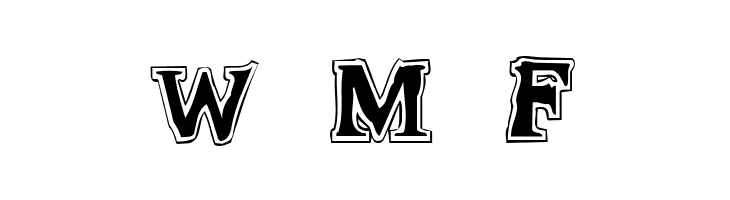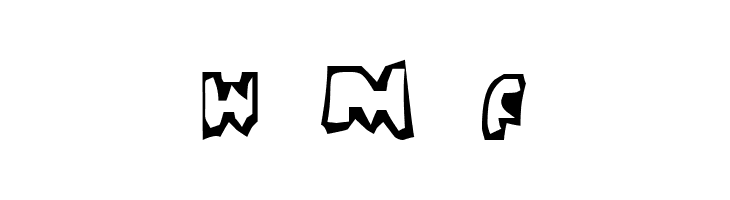
A bold, decorative font with a three-dimensional contour effect.
A bold, shadowed font with sharp serifs and a three-dimensional effect.
A modern, condensed sans-serif font with a clean and professional appearance.
A bold, geometric font with an angular, octagonal design and a three-dimensional effect.
An abstract collection of human face illustrations, not a traditional font.
A monospaced serif font combining classic elegance with modern uniformity.
A playful, decorative font with button-like characters featuring unique expressions.
A bold, shadowed font with a strong, three-dimensional appearance.
A bold, geometric font with a three-dimensional, futuristic design.
A bold, three-dimensional font with striking shadow effects and geometric styling.
A creative set of emoticons using mathematical symbols to depict facial expressions.
Bold, three-dimensional serif font with shadow effects.
A bold, decorative font with a three-dimensional, shadowed effect.
A bold, three-dimensional font with a vintage, geometric style.
A bold, three-dimensional font with a vintage, shadowed style.
A bold, modern font with an embossed, three-dimensional effect.
A bold, three-dimensional font with a folded, shadowed appearance.
A series of whimsical stick figure illustrations with varied facial expressions.
A three-dimensional, outline-style font with geometric and angular design.
A bold, three-dimensional outline font with a modern, geometric style.
A bold, angular font with a striking shadow effect for a modern, three-dimensional look.
A whimsical collection of cartoonish eyes and expressions with bold, playful designs.
A bold, three-dimensional font with a carved-out effect.